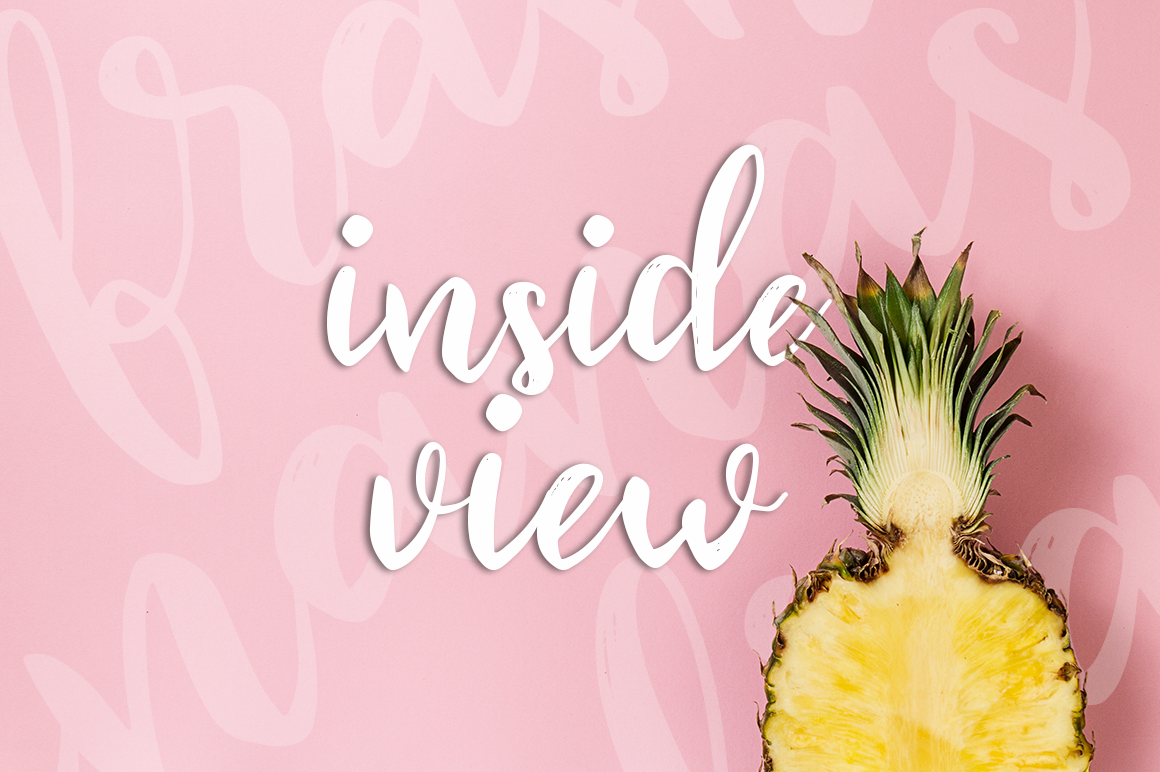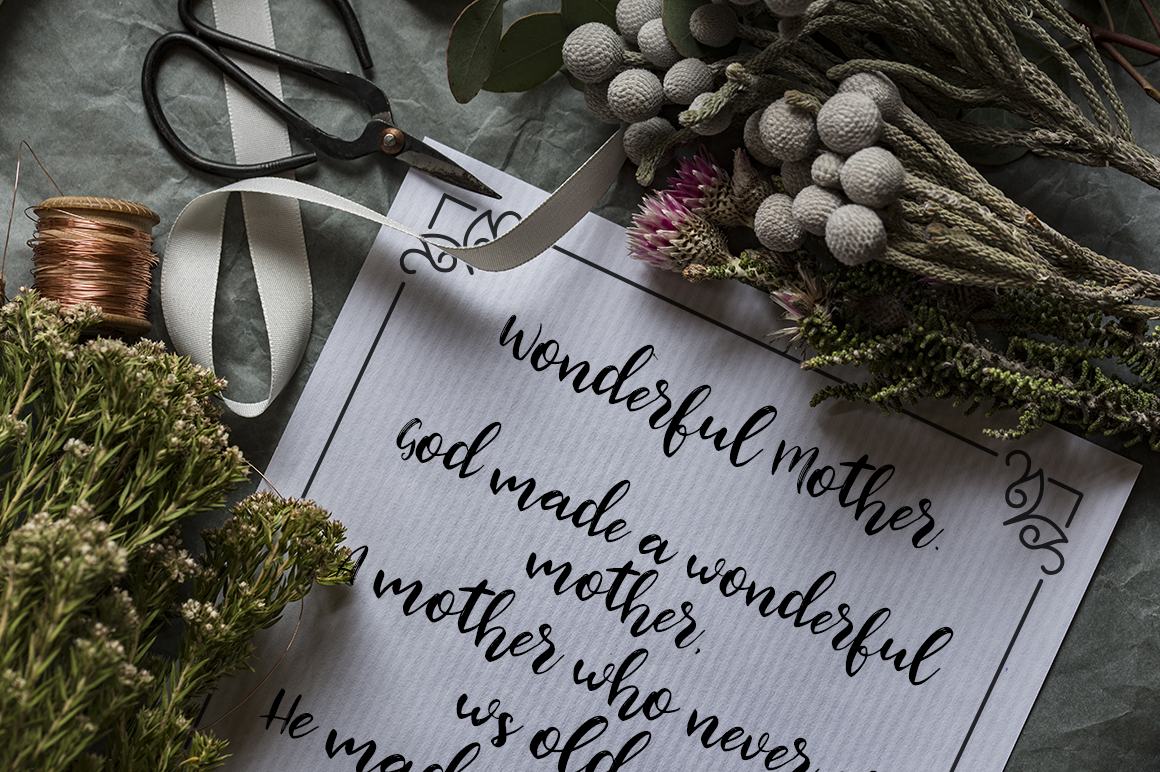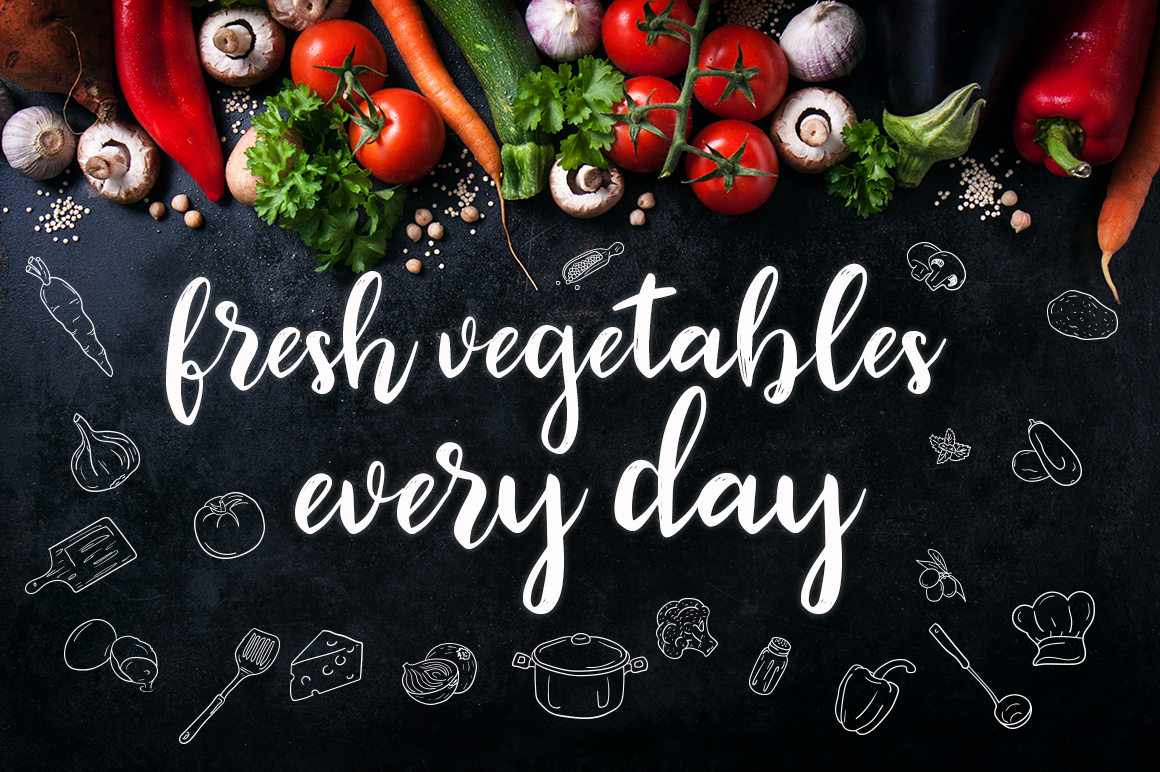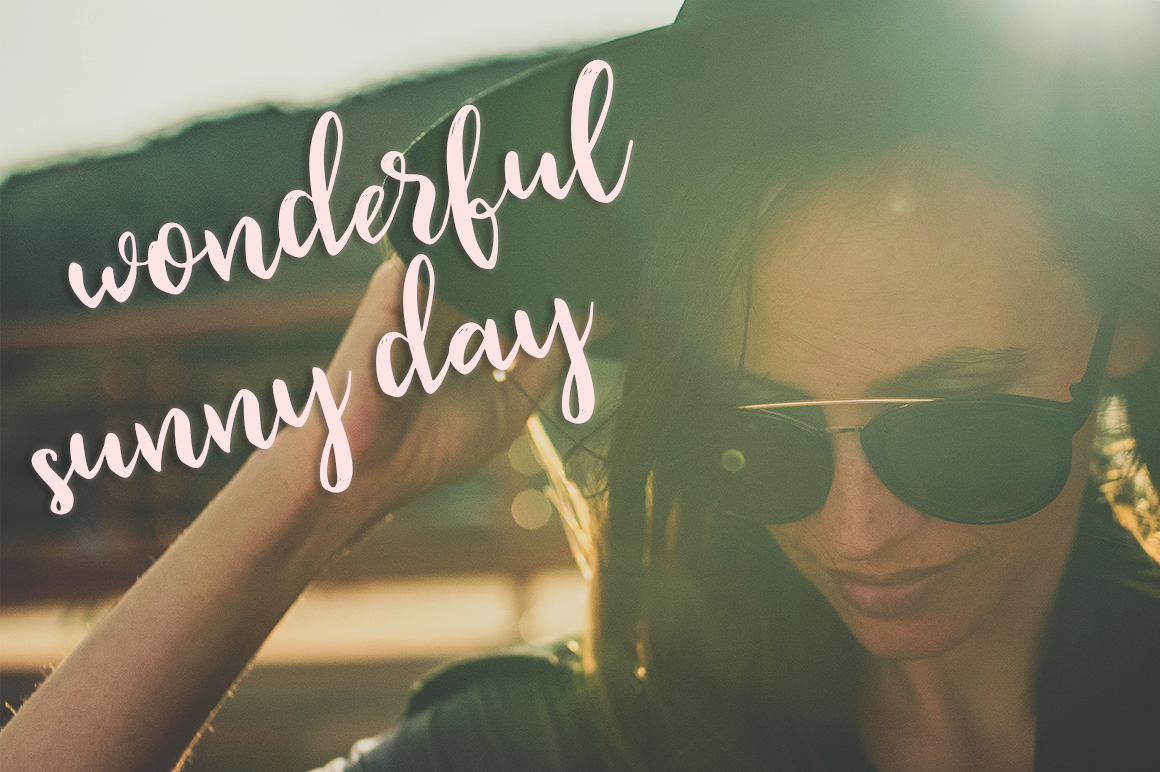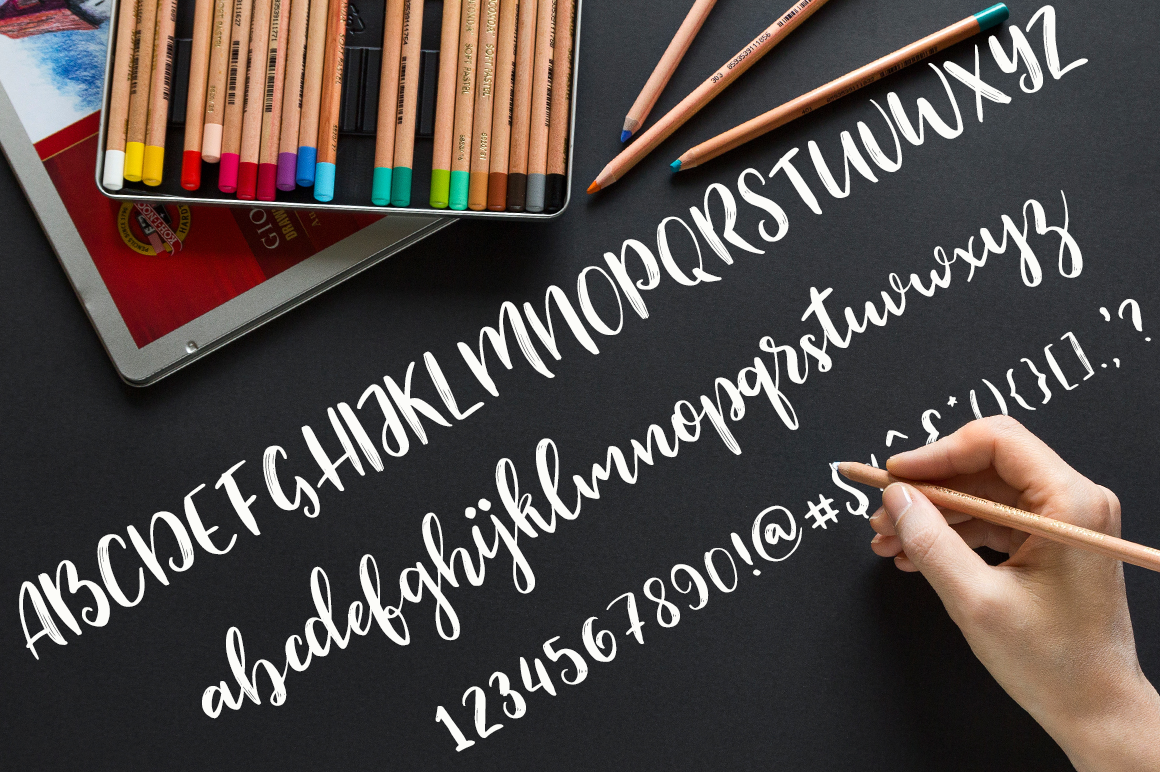
HomeScript FontsModesty Font Script Fonts Modesty Font FacebookXPinterestWhatsApp Modesty Font Poster 2 Modesty Font Poster 3 Modesty Font Poster 4 Modesty Font Poster 5 Modesty Font Poster 6 About Modesty Font Modesty is a brush painted script, perfect for decorative design projects. DOWNLOAD NOW People also explored Hany Petter Font Hollow Font Easter Bunny Font Roscoe Corner Script Font Bond Rotterdam Font Easter Egg Font Diligence Font Simple House Font Harbor Font 255 0 TagsModesty Font Previous articleCharmie FontNext articleScat Cat Font LEAVE A REPLY Cancel reply Comment: Please enter your comment! Name:* Please enter your name here Email:* You have entered an incorrect email address! Please enter your email address here Website: Save my name, email, and website in this browser for the next time I comment. Personal Use Free Lovetle Personal Use Free Read more about this font Boronic Personal Use Free Read more about this font Ayam Bakar Personal Use Free Read more about this font Starting Live Personal Use Free Read more about this font BLOG Best Fonts for YouTube Videos: Make Your Thumbnails Stand Out Best Fonts for YouTube Videos: Make Your Thumbnails Stand Out Choosing the right font can make a massive difference in how your YouTube videos perform.... How to Install and Use Fonts on Windows, macOS, and Web Projects Fonts That Capture the Spirit of New York City To increase your work productivity, choose the most readable fonts.